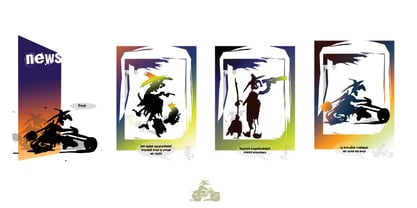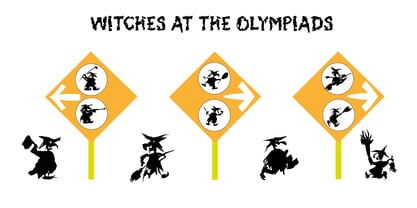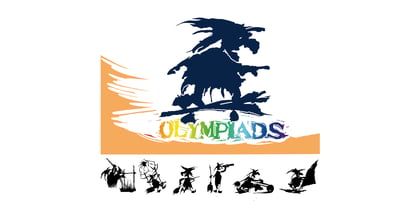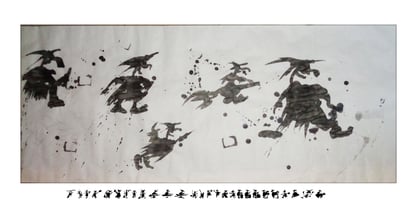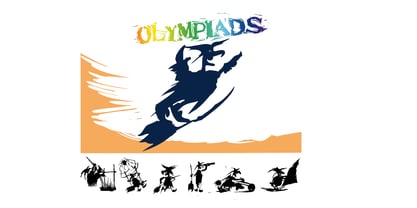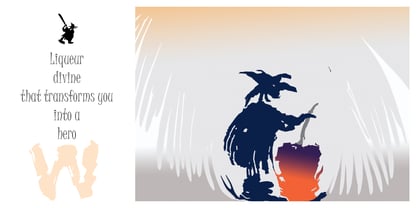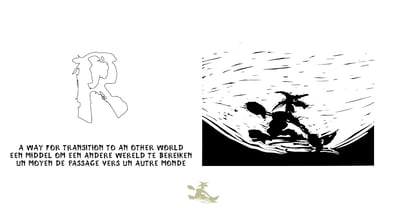
Witches at the Olympiads
by SEMMAD
The Witches at the Olympiads Font Family was designed by Taouffik S Semmad and published by SEMMAD. Witches at the Olympiads contains 1 styles. More about this family
Our project consists of creating unique, iconic identities that stand out and don't blend into the crowd. We use a creative and innovative approach to bring captivating designs to life that set the standard. We chose the theme of the witch, a recurring archetype in popular beliefs. This figure is present in a multitude of visual contexts, such as signage, advertising, cartoons, cinema, sports, etc. The witch interprets the world with humor. She has a comical, amusing, and magical side. This symbol is recognized in all cultures. The neo-witch gives her a universal dimension. Some of the witches depicted have inspired creations: an album, an artist's book, chocolate sculptures, a poster for an exhibition of illustrators. A test for a 3D cartoon has also been carried out. They are also in constant motion, which gives them a dynamic side, and they represent each sport in a comical way.
Designers: Taouffik S Semmad
Foundry: SEMMAD
SEMMAD is a new font library that stands out for its innovative approach to typographic design. All fonts and pictograms are first drawn by hand and then digitized, giving them a unique strength.Inspiration is drawn from current world events, most often.This is a form of expressionism that involves exploiting and transforming the calligraphic alphabet, then transforming it into typography.